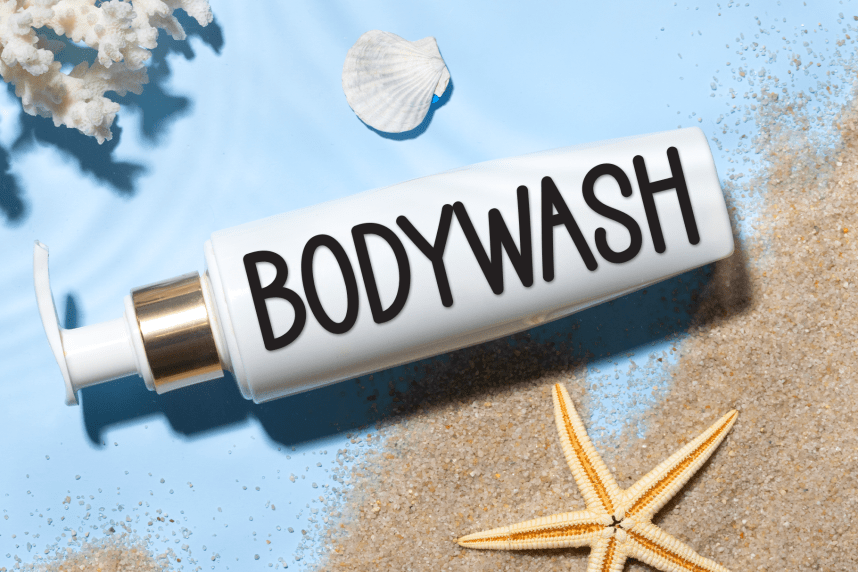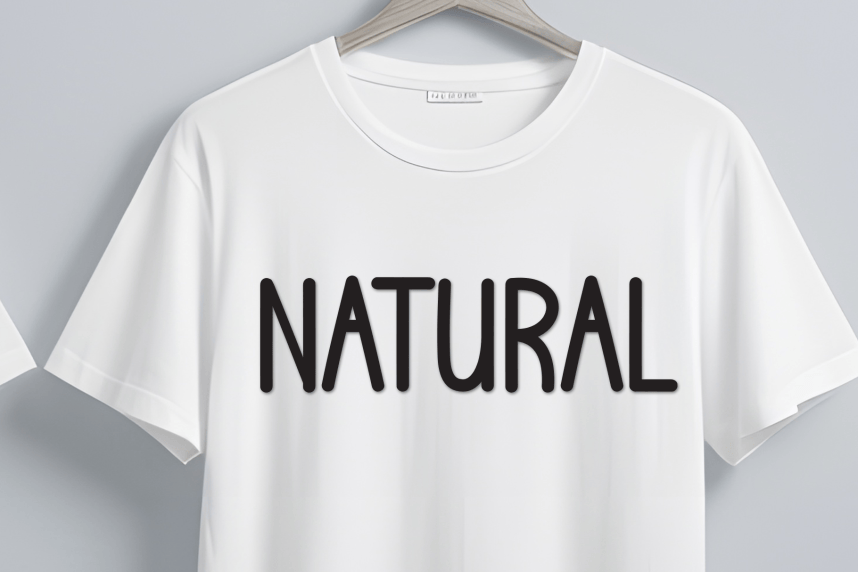
Camping Adventure – Creative Style Font
Camping Adventure – Creative Style Font is a sweet and friendly handwritten display font. Cute and fun, this font is ideal for writing wedding invitations, cards, or any other design that might need a playful touch!